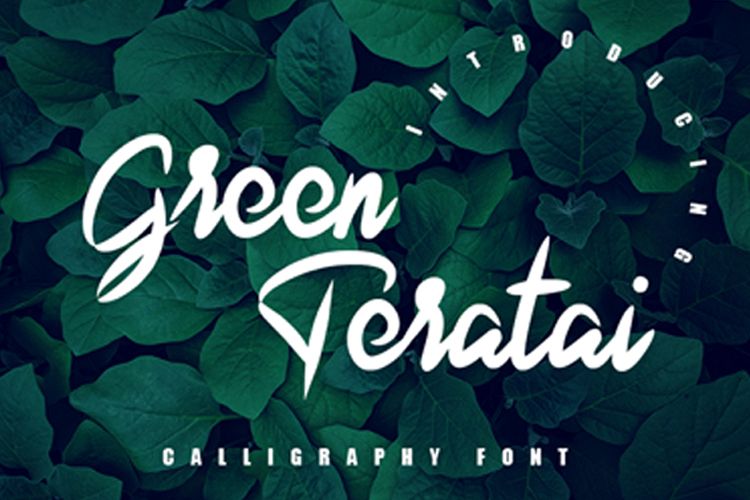
Green Teratai
Green Teratai is handwritten font and elegant look. Teratai is the name of the lotus flower in Indonesian.
Green Teratai Font is ideal for quotes, poster, branding, illustration etc.